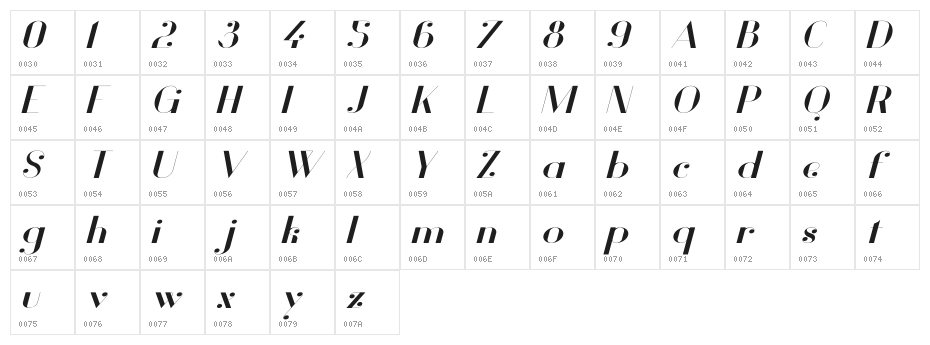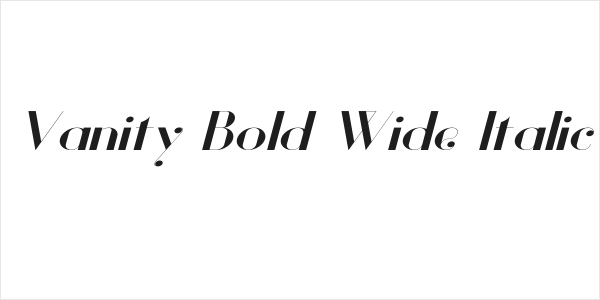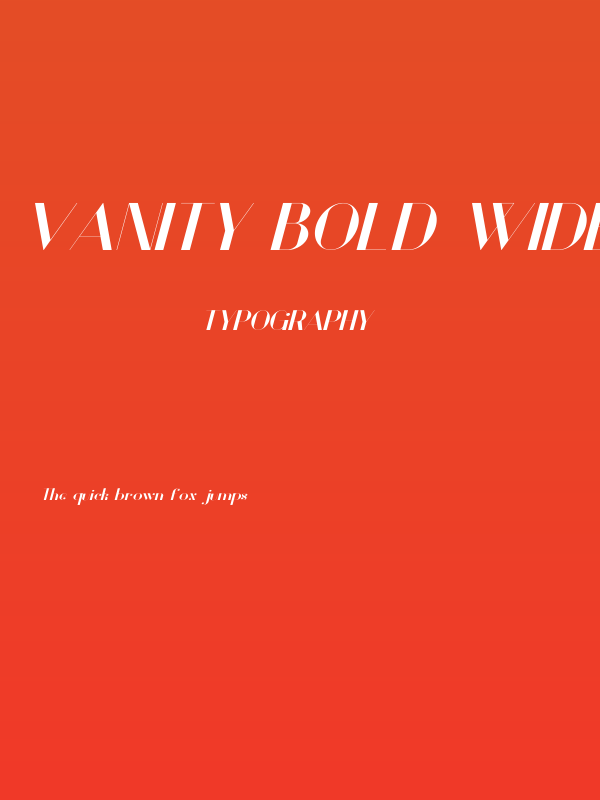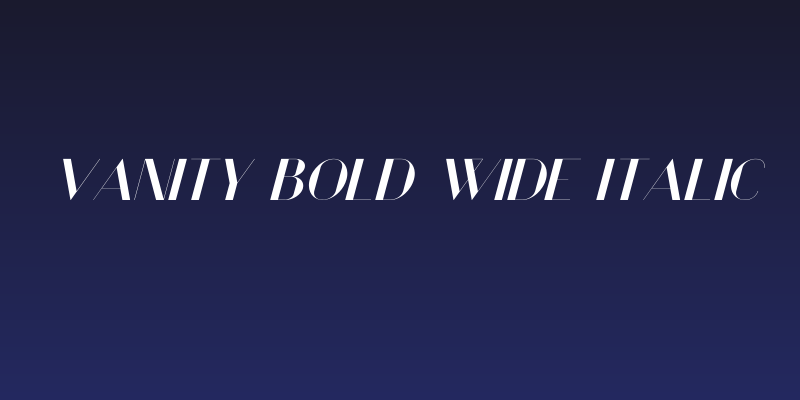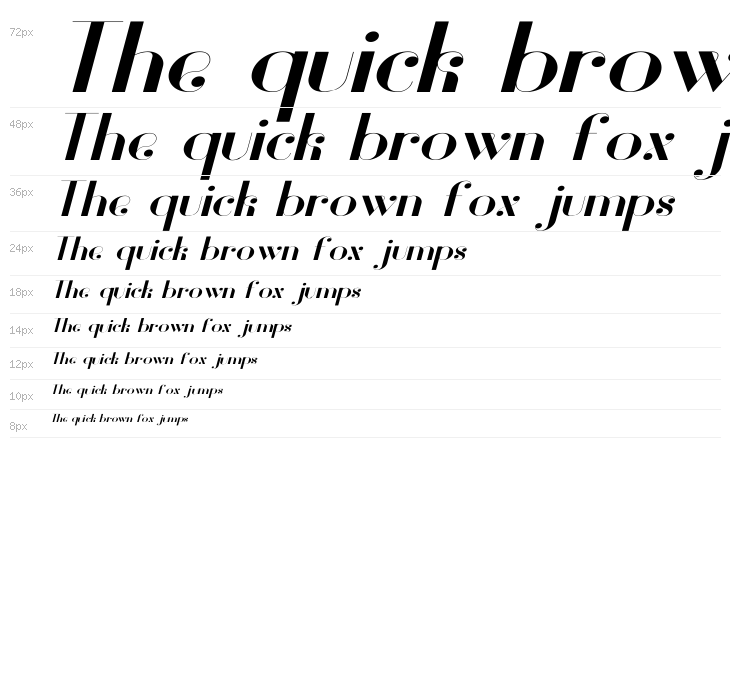
Vanity Bold Wide Italic Font
Vanity Bold Wide Italic Description
This font features a bold and wide design with a distinct italic slant, creating a dynamic and elegant appearance. The characters exhibit high contrast between thick and thin strokes, adding a sense of sophistication and modernity. The uppercase letters are particularly striking, with sharp angles and smooth curves that enhance their visual impact. The lowercase letters maintain a consistent style, with unique flourishes that add character and flair. The numerals are bold and clear, ensuring readability while maintaining the font's overall aesthetic. Special characters are thoughtfully designed to match the font's style, making it versatile for various applications.
Overall StyleElegant and modern
Use CaseHeadlines, Logos, Branding
Proposed ProjectsIdeal for luxury branding, fashion magazines, elegant invitations, and high-end product packaging.